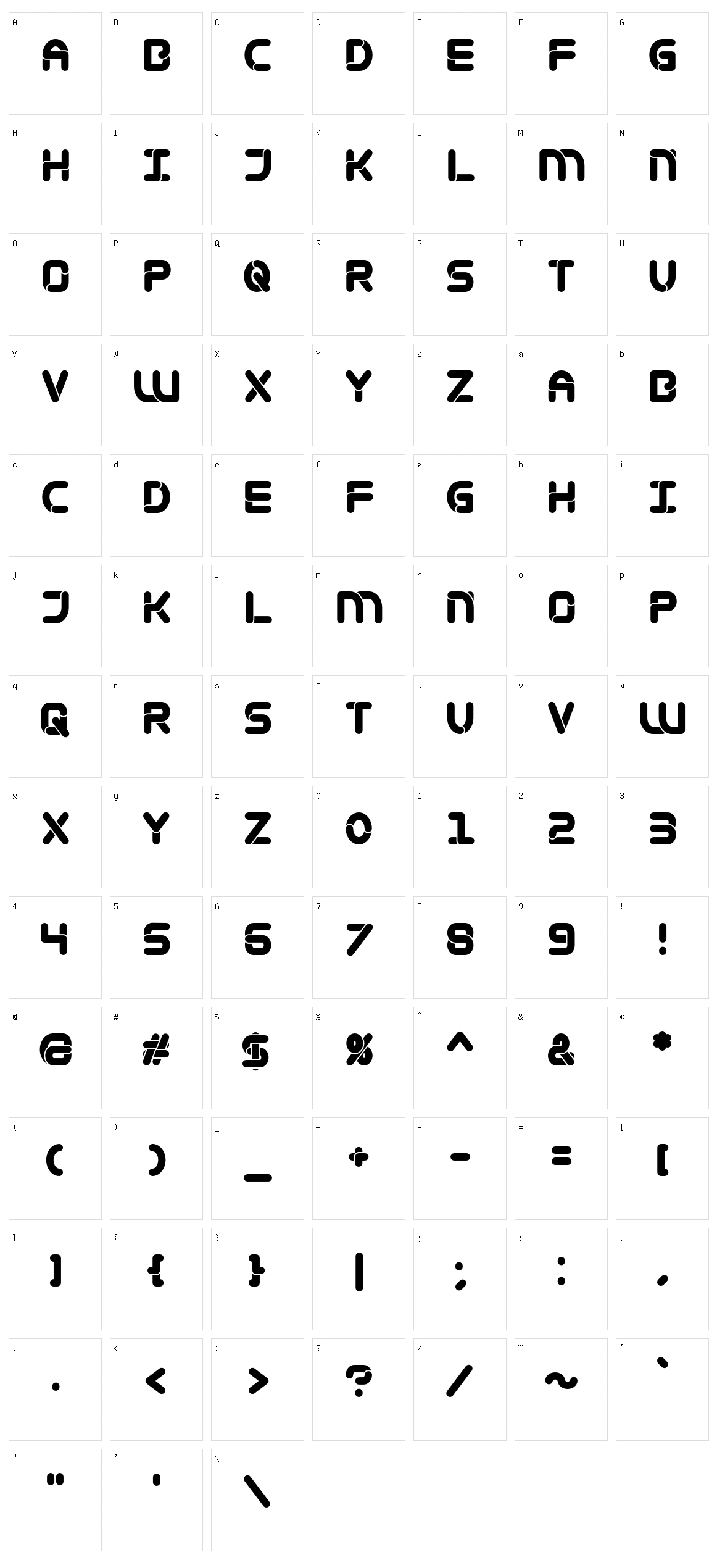
Mametosca 026
Mametosca 026 is an experimental font family of Hefenstrasse Lab.
available only uppercase. but there are some rudimentary glyph, please understandable.
Mametosca 026 Character Set